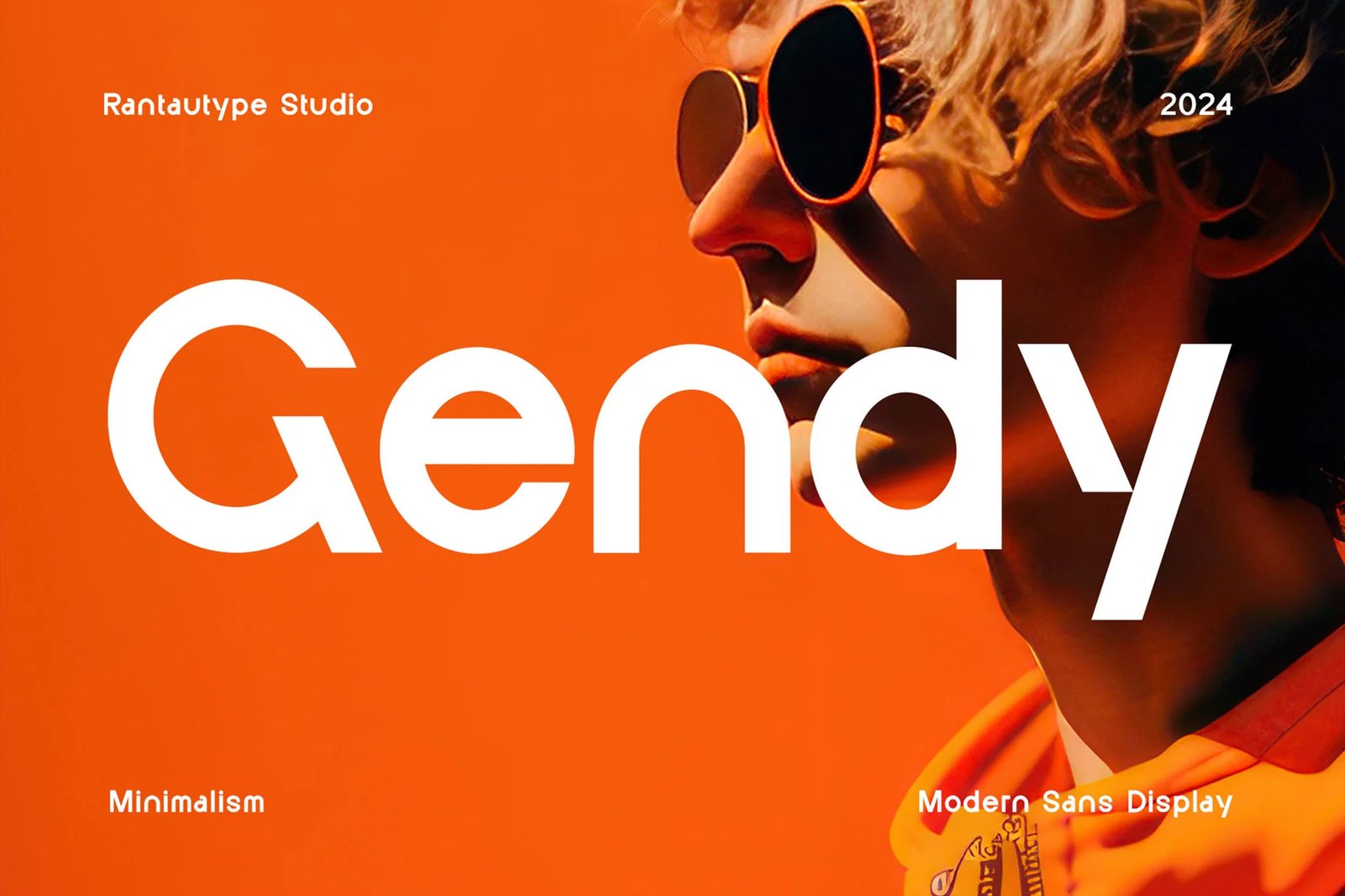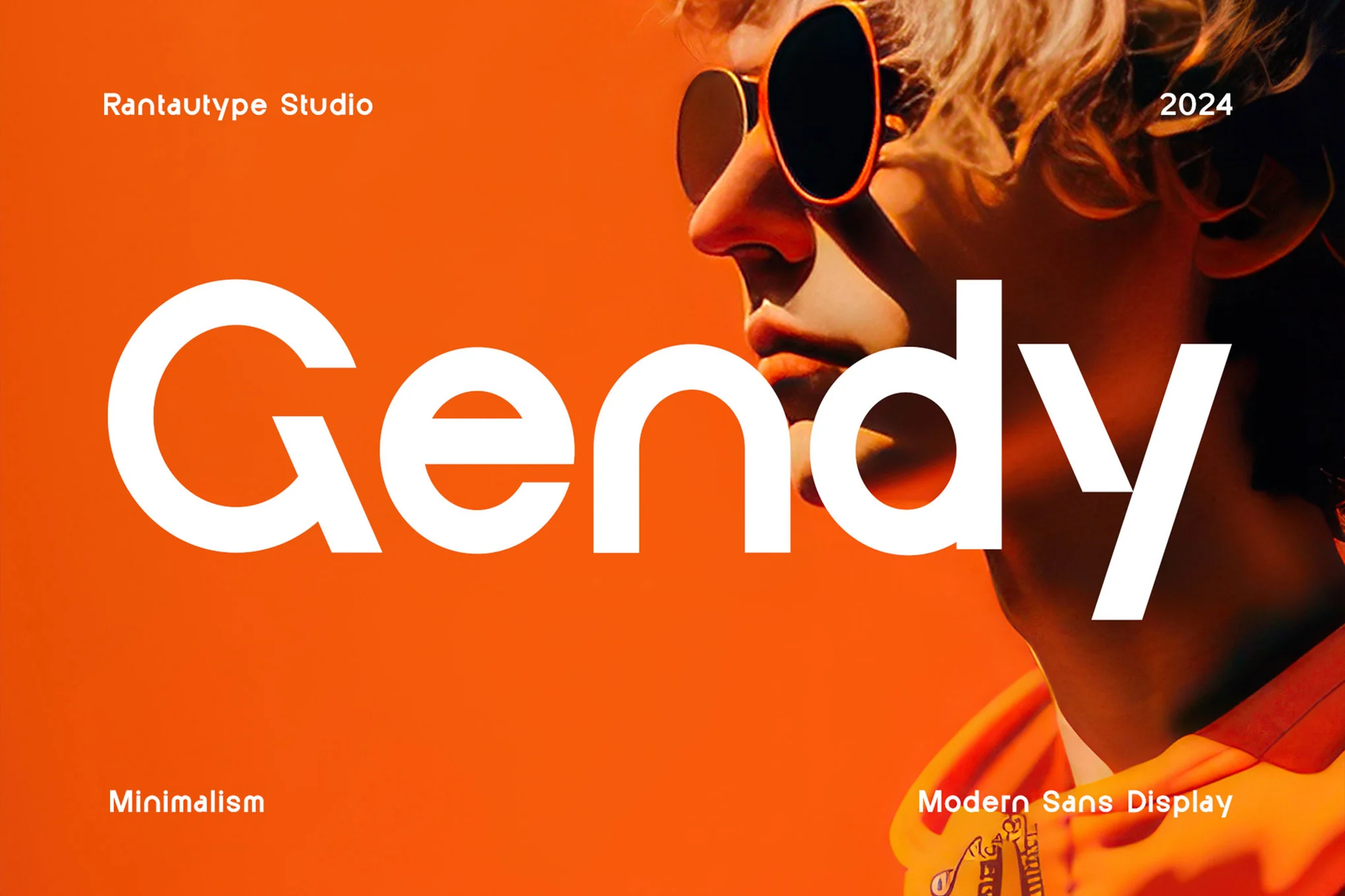
Gendy Modern Sans Font
Vault Zxnova Gendy is a modern grotesque-inspired sans serif font with geometric details and extensive multilingual support, perfect for chic branding, editorial, and lifestyle projects.
Vault Zxnova presents Gendy, a modern sans serif font inspired by grotesque styles with geometric details deeply rooted in industrial design principles. Gendy is the perfect choice for creative projects with a chic, lifestyle touch including logos, advertisements, photography watermarks, stationery, branding, display typography, magazines, invitations, corporate branding, product design, and labels.
Standard Glyphs Comprehensive glyph coverage for broad design use.
Numerical & Functional Full set of numbers and functional characters.
Alternates & Ligatures Offers stylistic alternates and ligatures for creative flexibility.
Multilingual Support Supports a wide range of international languages, ideal for global projects.
Gendy by Vault Zxnova is designed to bring elegance and industrial sophistication to your designs, making it a versatile addition to any creative toolkit.
Classification
Sans-Serif
Spacing
Normal
Optimum Size
Any Size